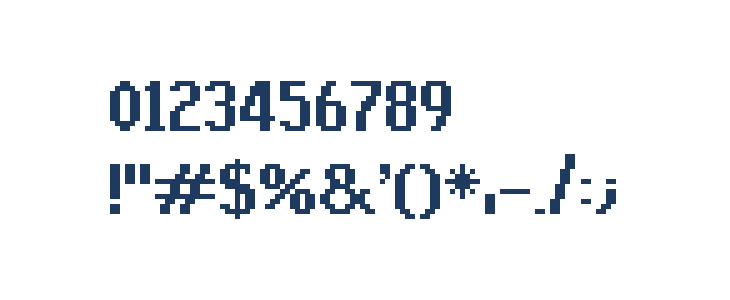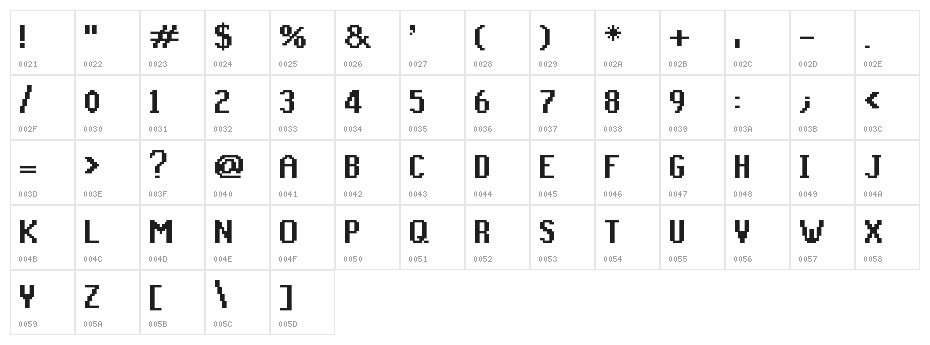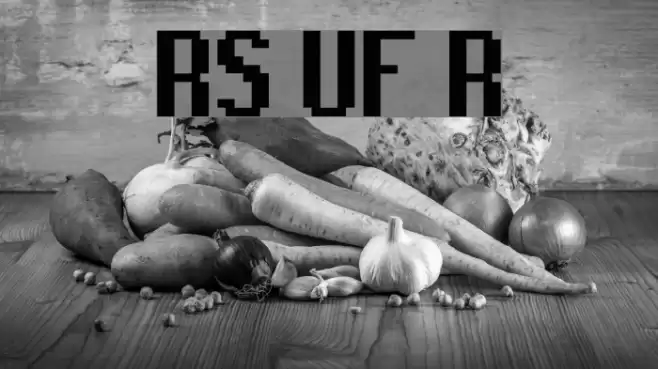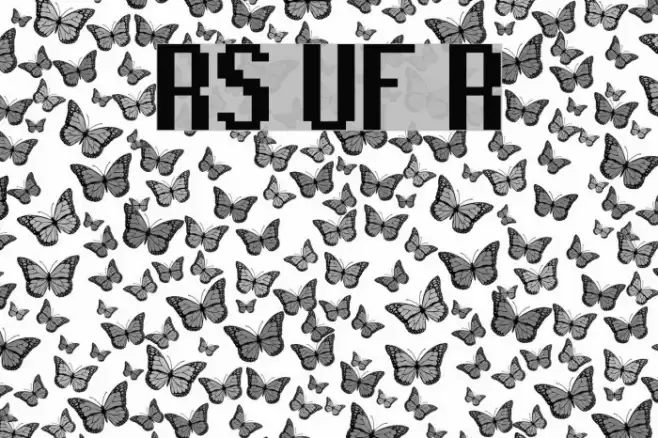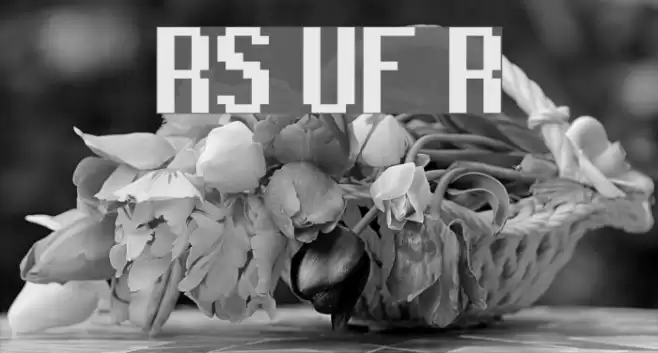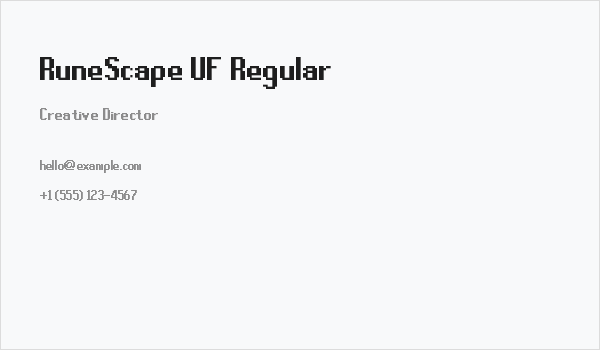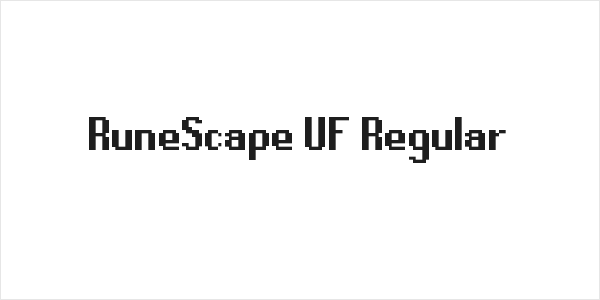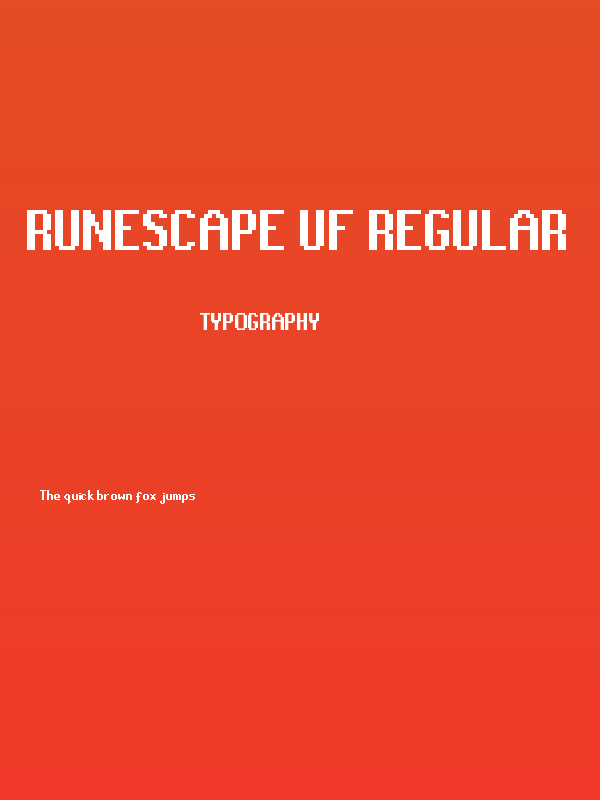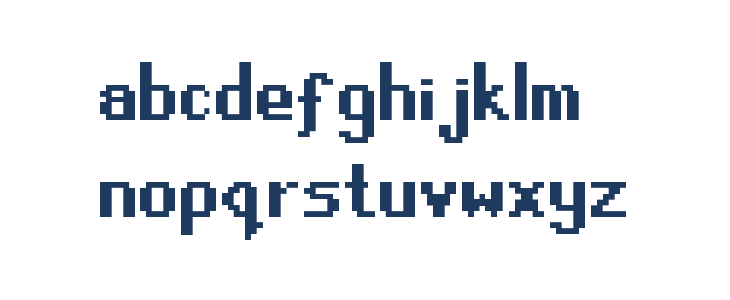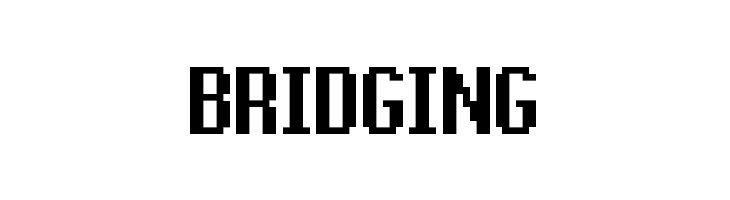
RuneScape UF Regular Font
This font features a pixelated, blocky design reminiscent of early digital and video game typography. Each character is constructed with a uniform grid-like structure, giving it a distinctly retro and nostalgic feel. The uppercase and lowercase letters maintain a consistent height, with the lowercase characters being slightly smaller in width. Numbers and special characters follow the same pixelated style, ensuring uniformity across all glyphs. The font's design is straightforward, with no curves or embellishments, emphasizing clarity and simplicity. This makes it ideal for projects that aim to evoke a sense of nostalgia or pay homage to classic video game aesthetics.
Overall StyleVintage
Use CaseLogos, Headlines, Digital Art
Proposed ProjectsIdeal for retro video game designs, pixel art projects, and nostalgic digital media.